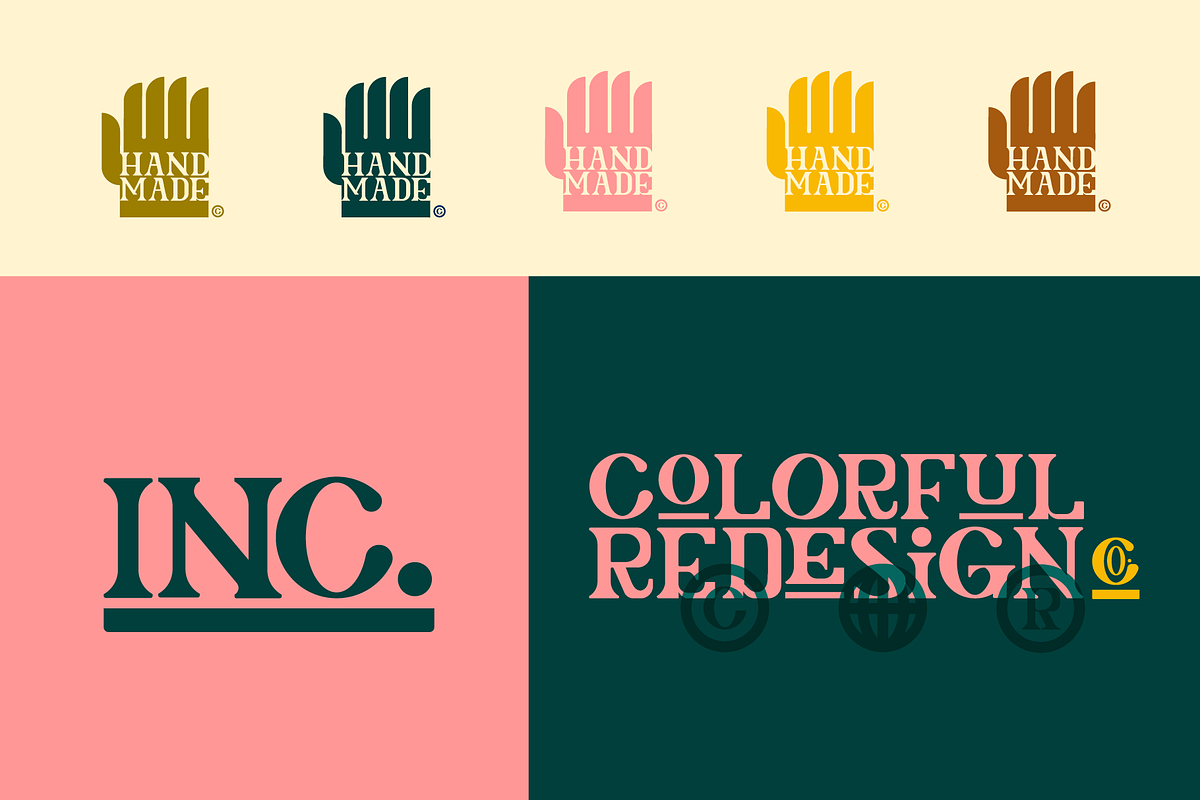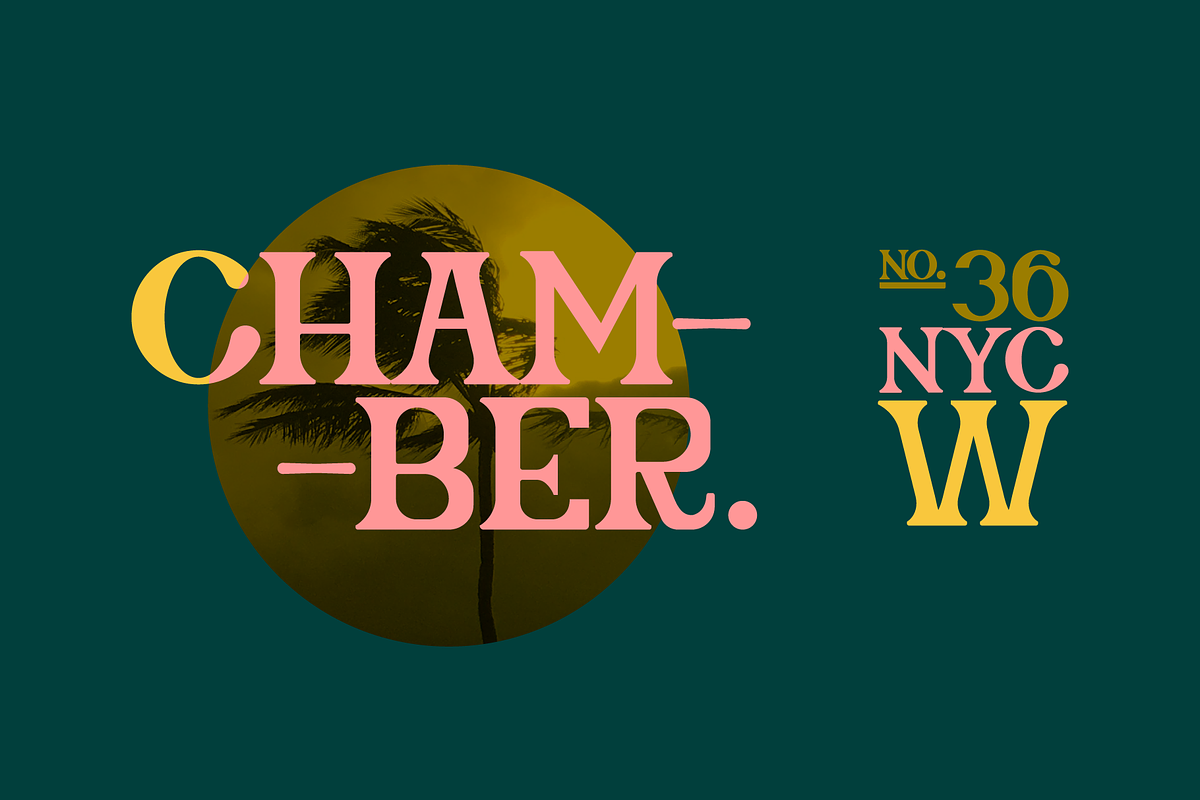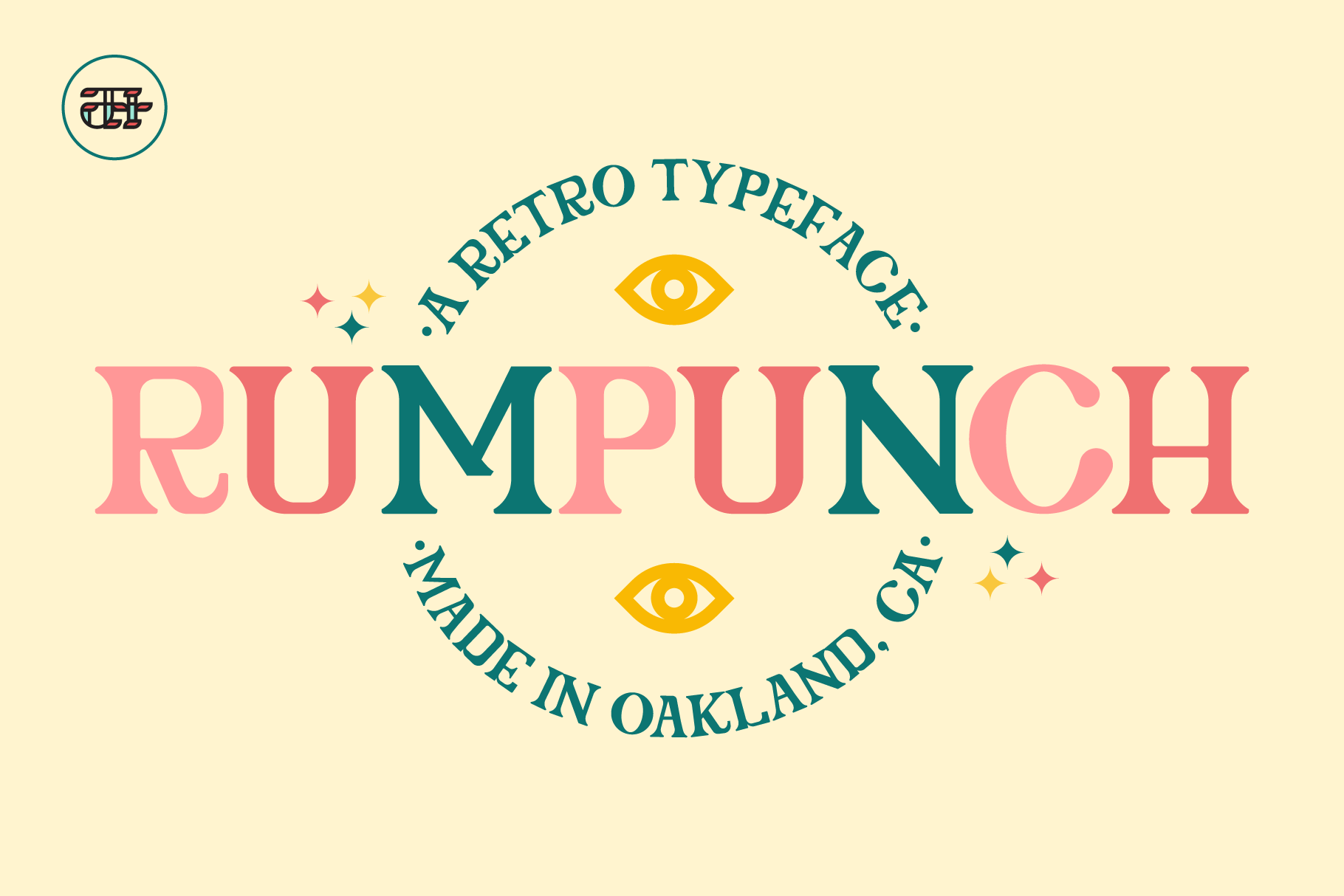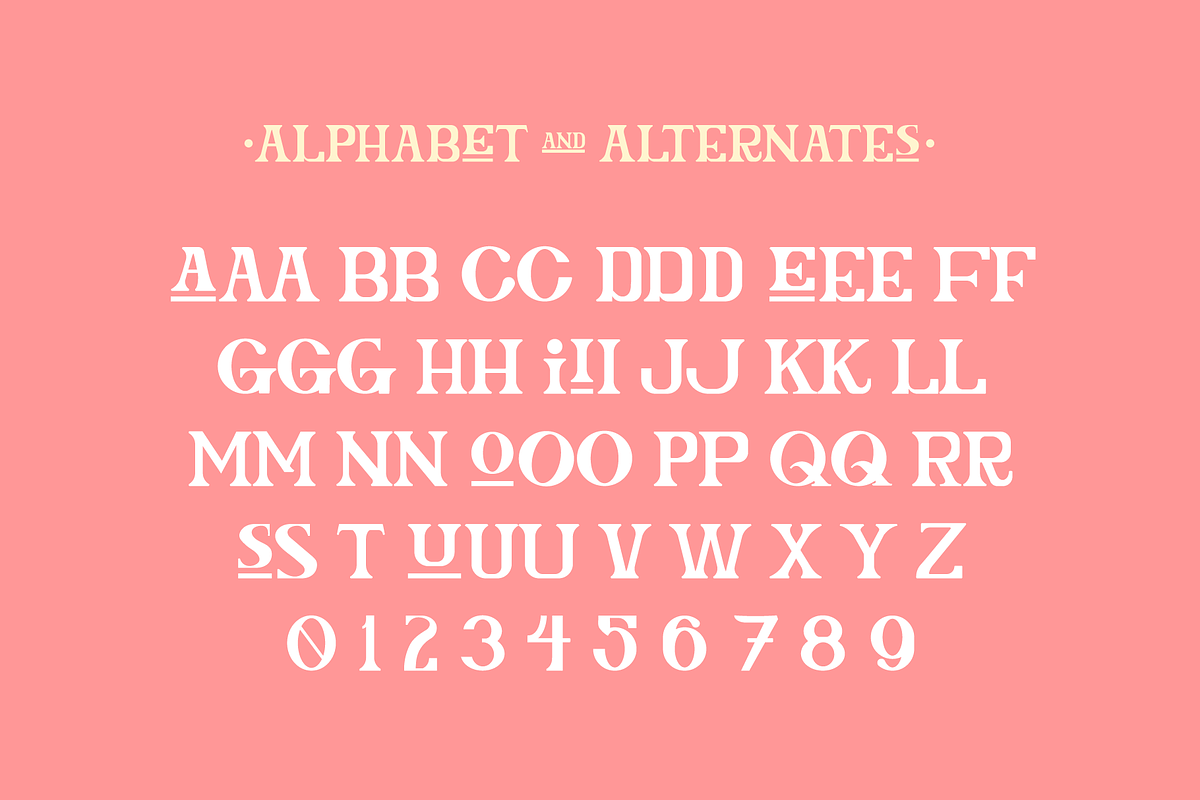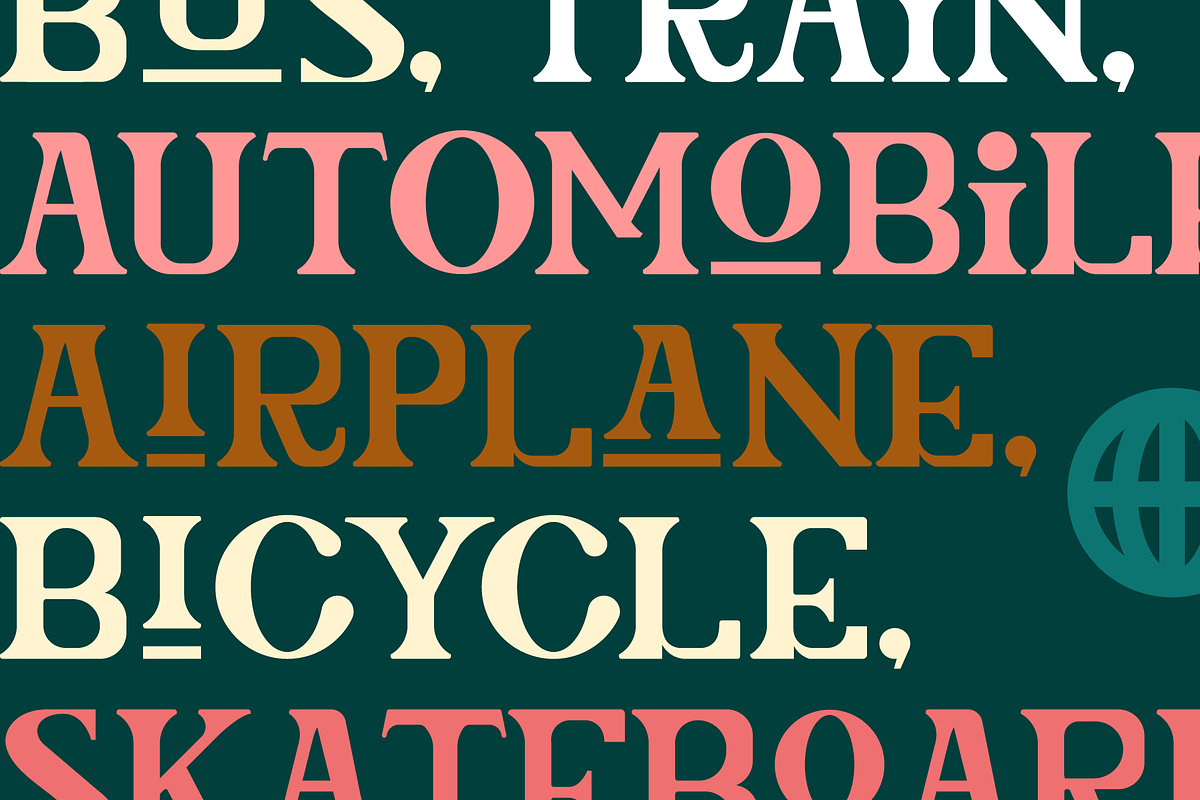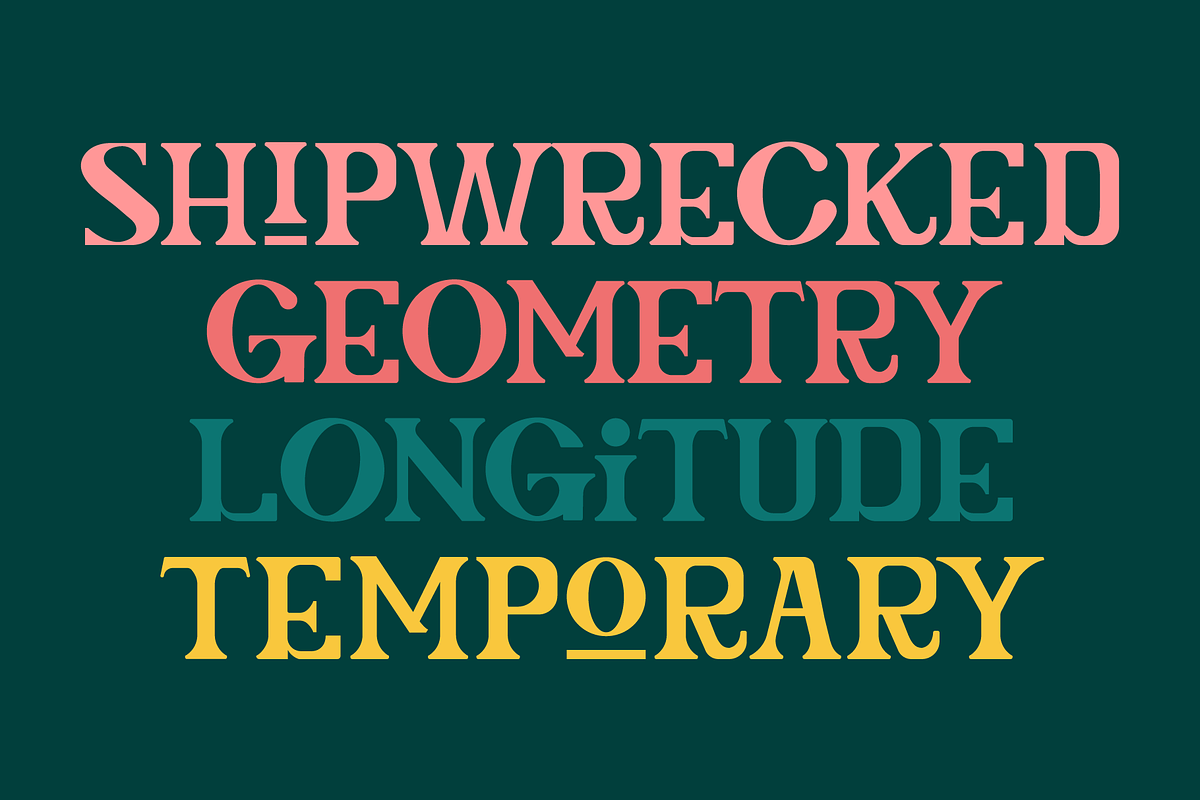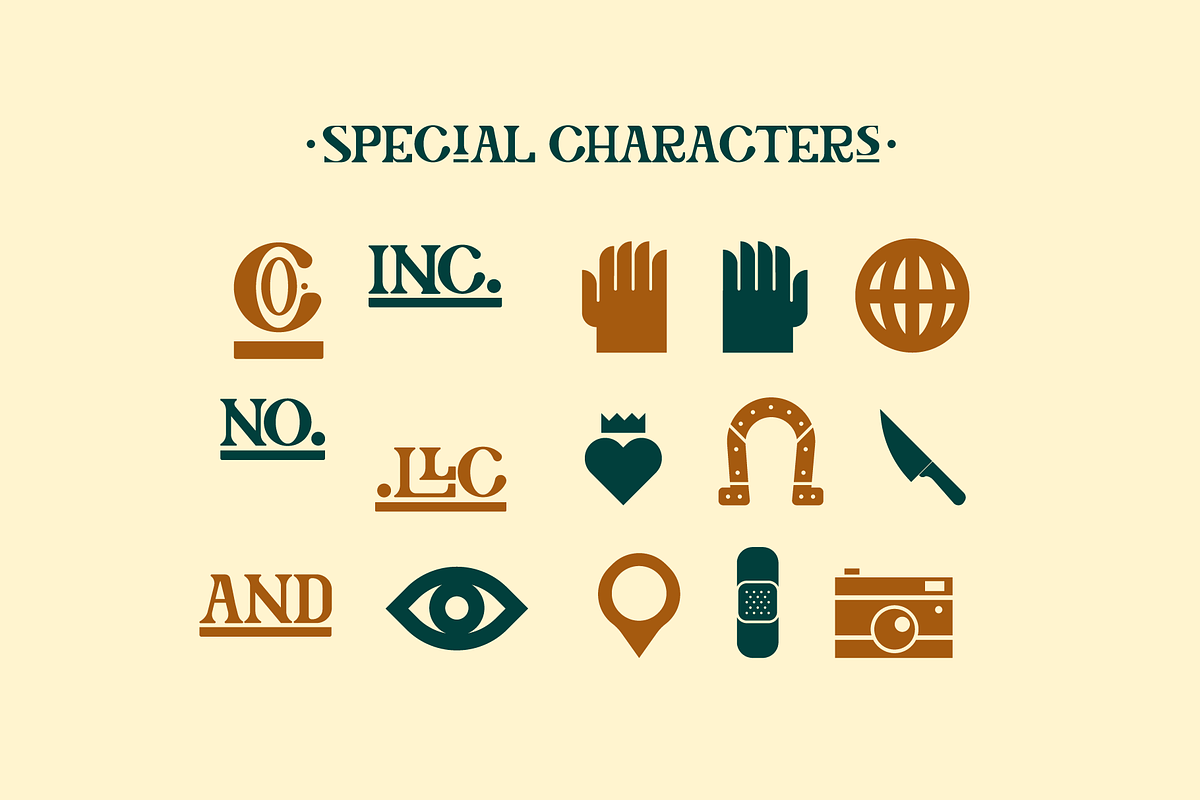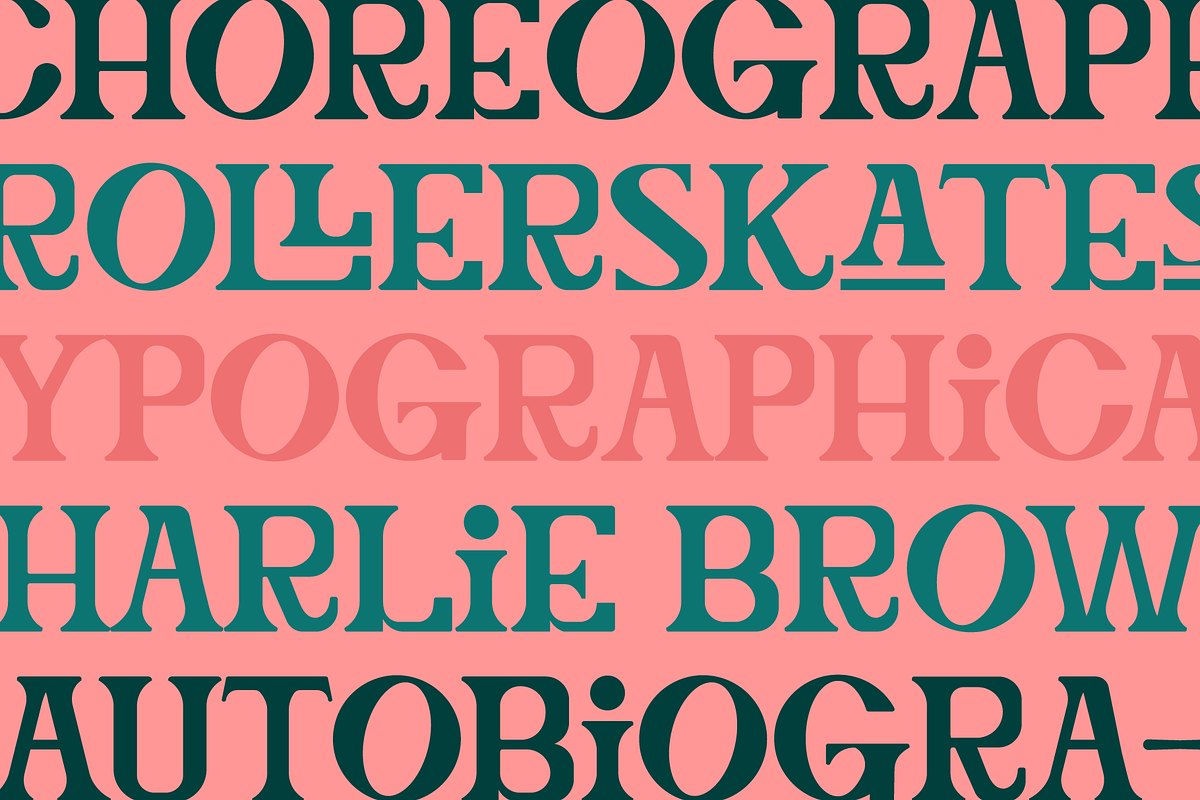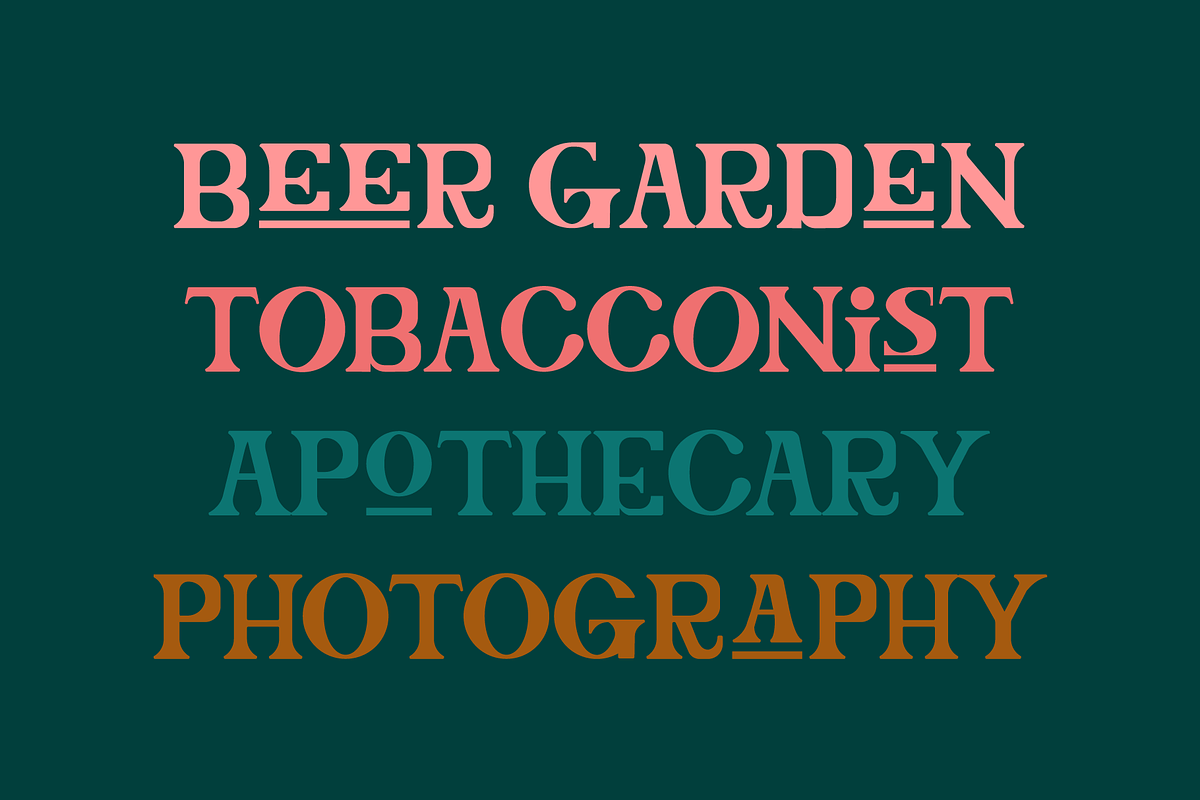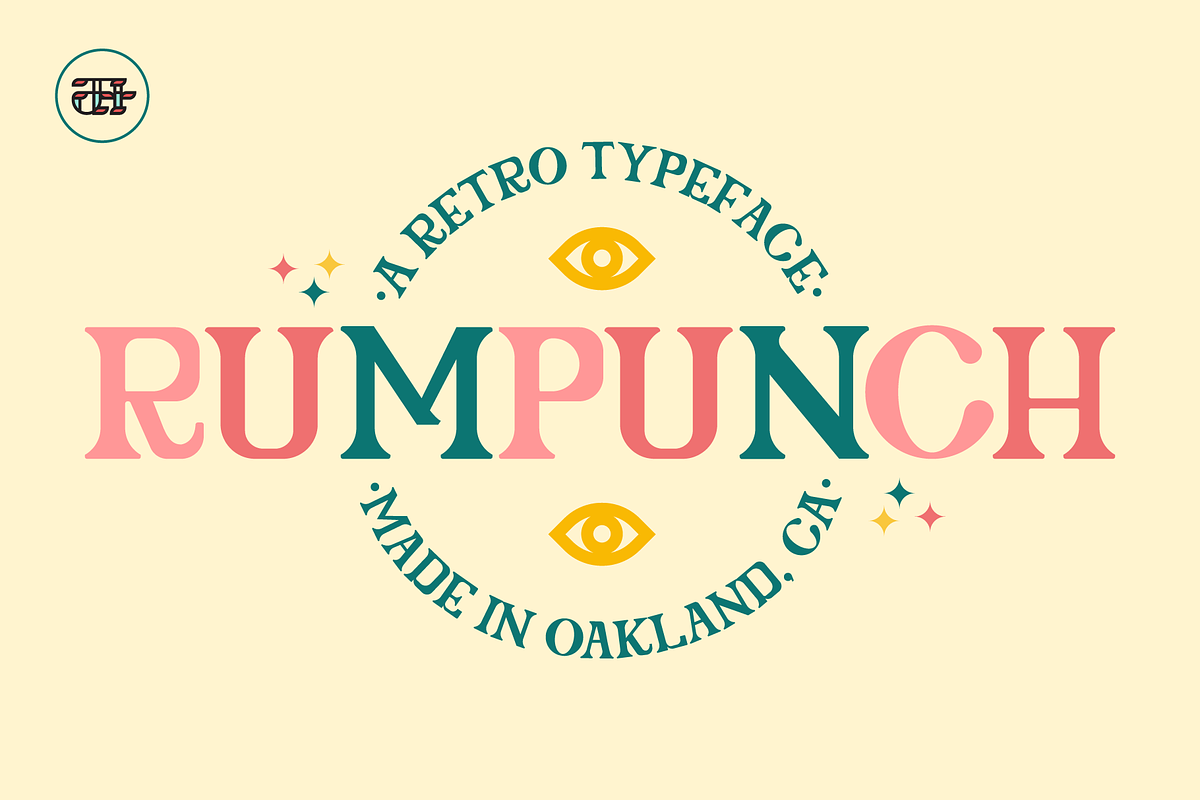
Rumpunch Serif All-Caps Display Font
Rumpunch is a fun retro serif all-caps typeface. It includes 25 discretionary ligatures, and a set of 15 special characters. Most of the letters have alternates, simply use upper or lowercase to change between them. Rumpunch has mid century modern feel. This font is perfect for headlines and branding projects.